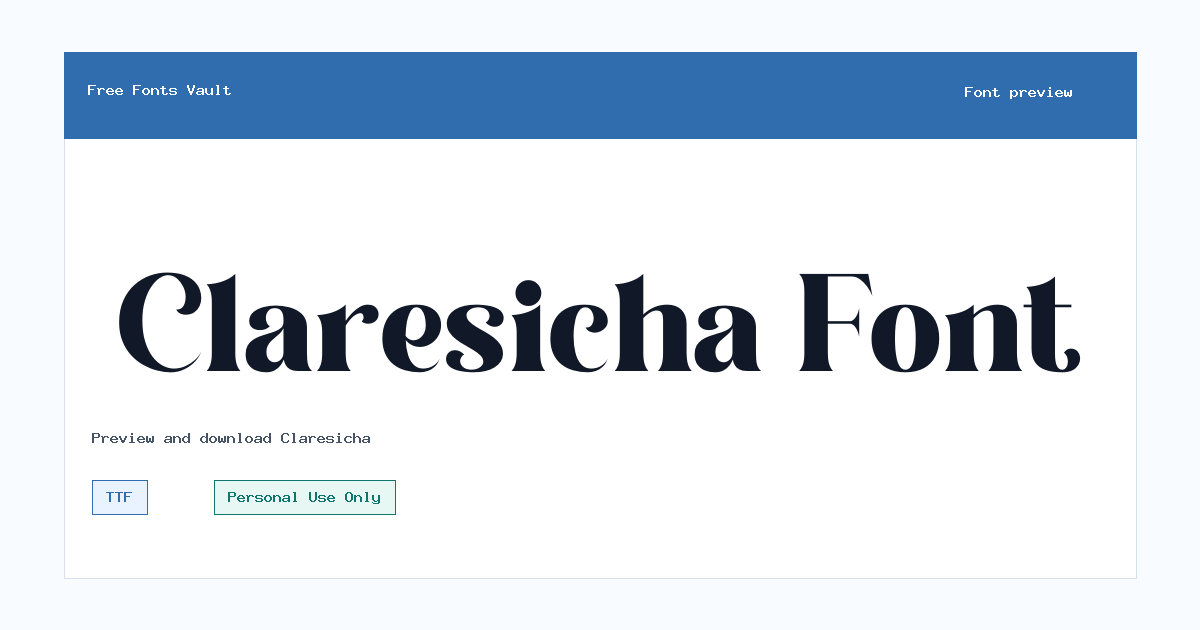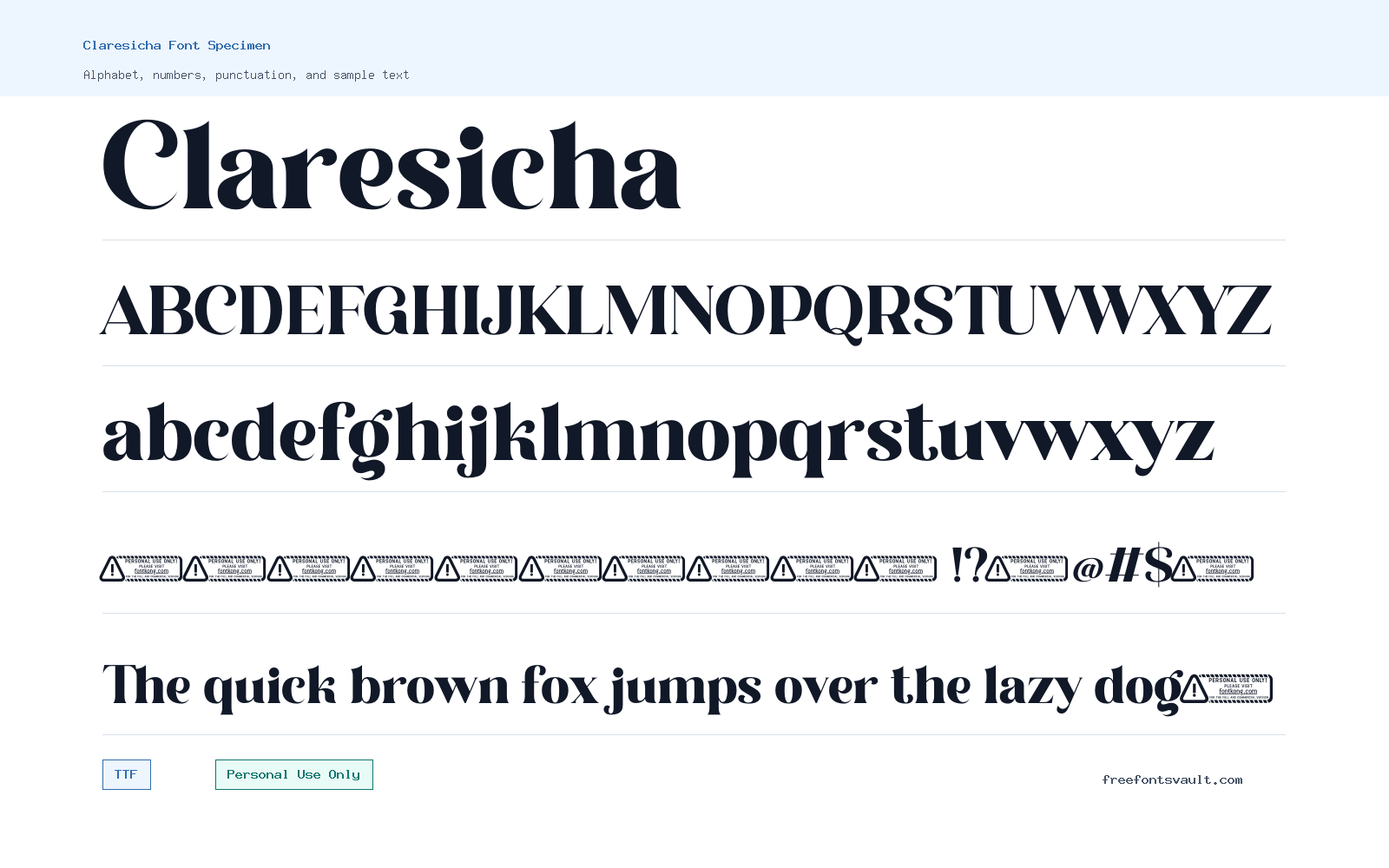
Claresicha
About Claresicha
Claresicha is listed as a serif font, so it is best approached as a display choice rather than a neutral everyday text face. Use the preview box to check how its letter shapes behave in the words you plan to design with, especially names, titles, short phrases, and brand-style lockups. Fonts in this kind of category often work best when the viewer has time to notice the shape of the letters, so start with headings, poster text, social graphics, invitations, packaging drafts, mood boards, and other short-copy layouts instead of long reading blocks.
For designers, the most useful first test is not a full alphabet sample; it is your real phrase. Try the exact logo name, event title, product label, or headline you want to use. Look closely at spacing between tricky pairs such as AV, To, Ly, Wa, and double letters. If the preview feels too tight or too loose, adjust tracking in your design app before judging the font. Also test uppercase and lowercase combinations, punctuation, numbers, and accented characters if your project needs them. A font can look strong in a sample word but behave differently in a real layout, so a quick preview saves time before you download and install it.
Claresicha can be useful for personal logo drafts, poster compositions, web hero mockups, Pinterest-style graphics, quote cards, cover concepts, greeting designs, and presentation titles. Keep the layout simple around it. Pairing it with a clean sans serif is usually safer than placing it beside another decorative serif, because two expressive typefaces can compete. For example, use Claresicha for the main title and choose a plain sans serif for subtitles, dates, menus, captions, or body text. If you want a softer editorial look, pair it with a restrained serif that has clear contrast, but avoid using both fonts at similar sizes.
- Serif classification indicated by the license description
- Best suited to short display text where letter shape and spacing can be checked carefully
- Personal logo concepts and name-based design practice
- Poster titles, event graphics, and social media headline images
- Web mockups, landing-page hero text, and portfolio experiments
- Invitation drafts, quote cards, cover concepts, and mood boards
What kind of projects fit Claresicha best?
Use it for short display text such as titles, poster lines, personal branding mockups, invitations, social graphics, and web hero concepts. It is not the safest choice for long paragraphs unless testing shows it remains comfortable to read.
What should I pair with Claresicha?
A clean sans serif is a practical pairing choice. Use Claresicha for the main title and a simpler font for supporting text, captions, navigation, or body copy.